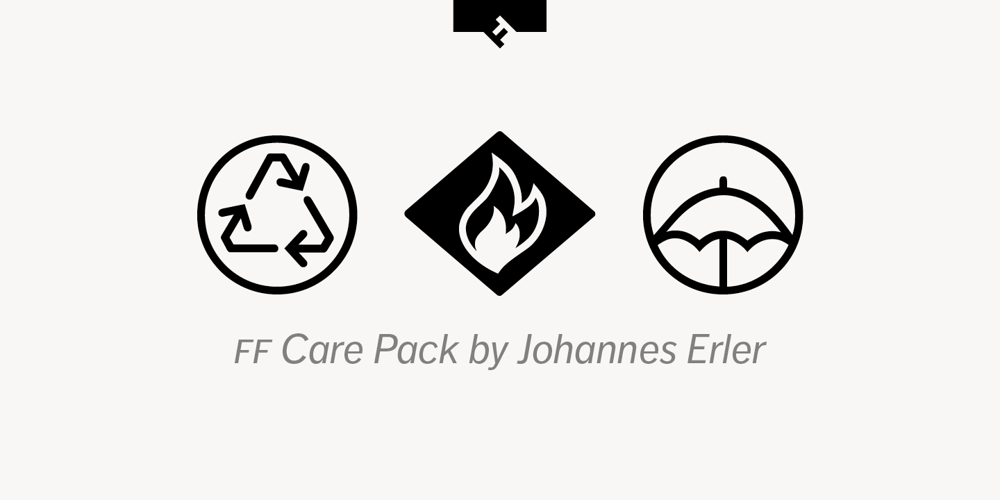
FF Care Pack Font Family was designed by Johannes Erler and published by FontFont. FF Care Pack contains 1 styles and family package options. German type designer Johannes Erler created this pi and symbols FontFont in 1992. The font is ideally suited for advertising and packaging. It comes with proportional lining figures.